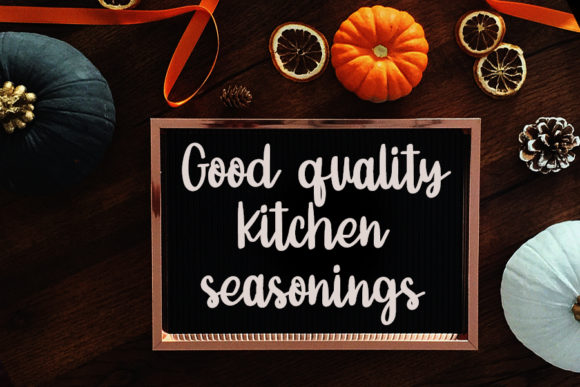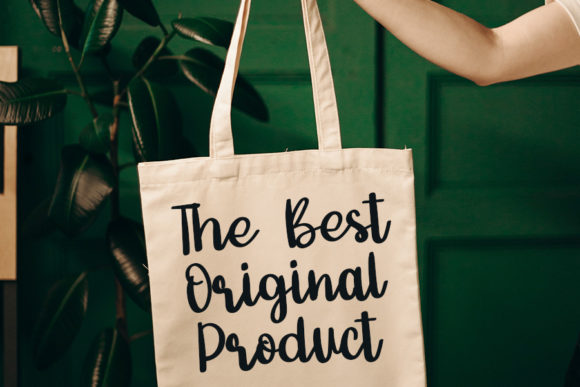
Kitchen Font
db-ku.com - Script & Handwritten -- Kitchen is a fun and friendly handwritten font. A little bit quirky, this font looks incredibly adept on a wide variety of contexts!